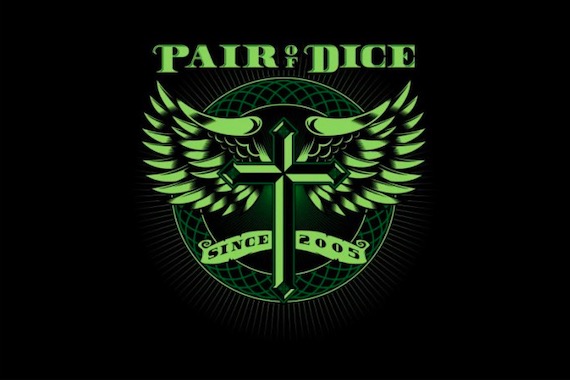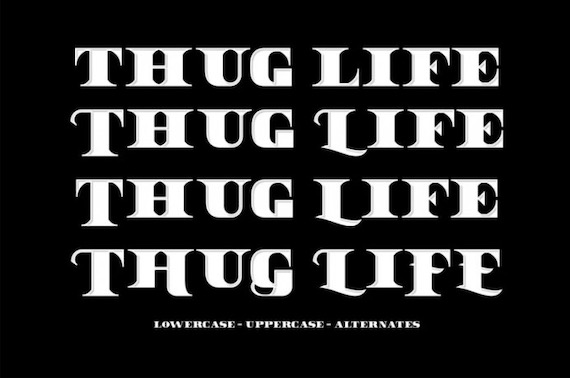
Dollar Bill 2 Font is especially for designers if you love to add versatility and dynamic to your designs. Dollar Bill 2 has a rough edge and you will love to use it in every future design project.
Dollar Bill 2 Display Font